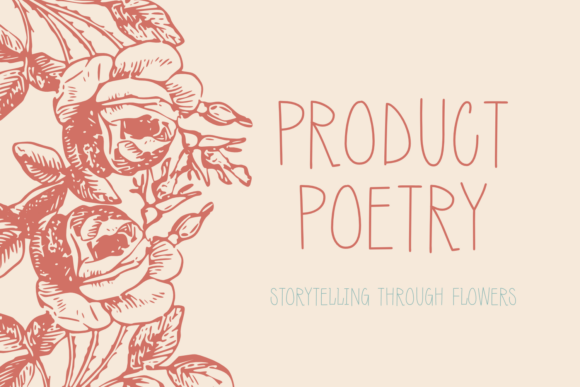
Introducing Unitary Font: The Delightful Single Line Font for Creative Designs
In the world of typography, fonts play a crucial role in conveying the tone and personality of a design. With numerous font styles available, designers often seek unique and expressive fonts to make their creations stand out. One such font that has gained attention for its simplicity and cheerfulness is the Unitary Font, specifically the Unitary Single Line font. This surprisingly delightful single line font is perfect for children’s designs, party invites, DIY projects, and more. In this article, we’ll explore the features and benefits of the Unitary Font, and how it can add a unique touch to your designs.
What is Unitary Font?
Unitary Font is a modern, single line font designed to bring a touch of cheerfulness to various design projects. Its simplicity and expressiveness make it an excellent choice for designers looking for a font that can convey a sense of playfulness and friendliness. The Unitary Single Line font, in particular, features a unique and stylish design, characterized by its connected lines and smooth curves.
Benefits of Using Unitary Font in Your Designs
The Unitary Font offers several benefits that make it an attractive choice for designers. Some of the key advantages include:
- Cheerful and Playful: The Unitary Font’s design is inherently cheerful and playful, making it perfect for children’s designs, party invitations, and other projects that require a lighthearted touch.
- Simple yet Expressive: Despite its simplicity, the Unitary Font is remarkably expressive, allowing designers to convey a range of emotions and personalities through their designs.
- Versatile: The Unitary Font is versatile and can be used in various design projects, from digital designs to print materials.
- Easy to Read: The font’s clear and connected lines make it easy to read, even at smaller font sizes.
Use Cases for Unitary Font
The Unitary Font is suitable for a wide range of design projects, including:
- Children’s Designs: The font’s playful and cheerful design makes it perfect for children’s books, educational materials, and activity sheets.
- Party Invitations: The Unitary Font’s festive and lively design is ideal for party invitations, birthday cards, and other celebratory materials.
- DIY Projects: The font’s simplicity and expressiveness make it a great choice for DIY projects, such as crafting, scrapbooking, and home decor.
- Digital Designs: The Unitary Font can be used in digital designs, including social media graphics, blog posts, and website headers.
Design Tips for Using Unitary Font
To get the most out of the Unitary Font, consider the following design tips:
- Pair with Contrasting Fonts: Pair the Unitary Font with contrasting fonts to create visual interest and hierarchy in your designs.
- Experiment with Colors: The Unitary Font looks great in a variety of colors, so don’t be afraid to experiment and find the perfect color scheme for your design.
- Use Different Line Weights: Varying line weights can add depth and visual interest to your designs, making the Unitary Font even more expressive.
Font Pairing Suggestions
To create harmonious and visually appealing designs, consider pairing the Unitary Font with other fonts that complement its style. Some font pairing suggestions include:
- Open Sans: A clean and modern sans-serif font that pairs well with the Unitary Font’s playful design.
- Lato: A sleek and elegant sans-serif font that provides a nice contrast to the Unitary Font’s simplicity.
- Merriweather: A classic serif font that adds a touch of sophistication and elegance to designs featuring the Unitary Font.
In conclusion, the Unitary Font, specifically the Unitary Single Line font, is a surprisingly delightful single line font that brings cheerfulness and simplicity to various design projects. Its expressive lines and playful design make it perfect for children’s designs, party invites, DIY projects, and more. With its versatility, ease of use, and range of design possibilities, the Unitary Font is an excellent addition to any designer’s font library.